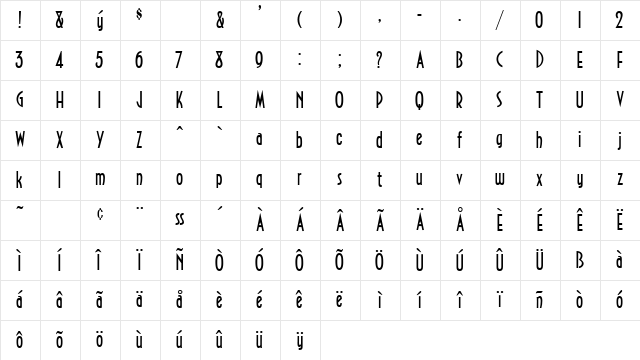
Northfields DB Regular
Design Context for Northfields DB
Northfields DB is a composed and adaptable typeface that performs quietly and consistently across a wide range of design contexts.
Pro Tip: Use Northfields DB in both headline and body roles to test its range before committing to a single application.